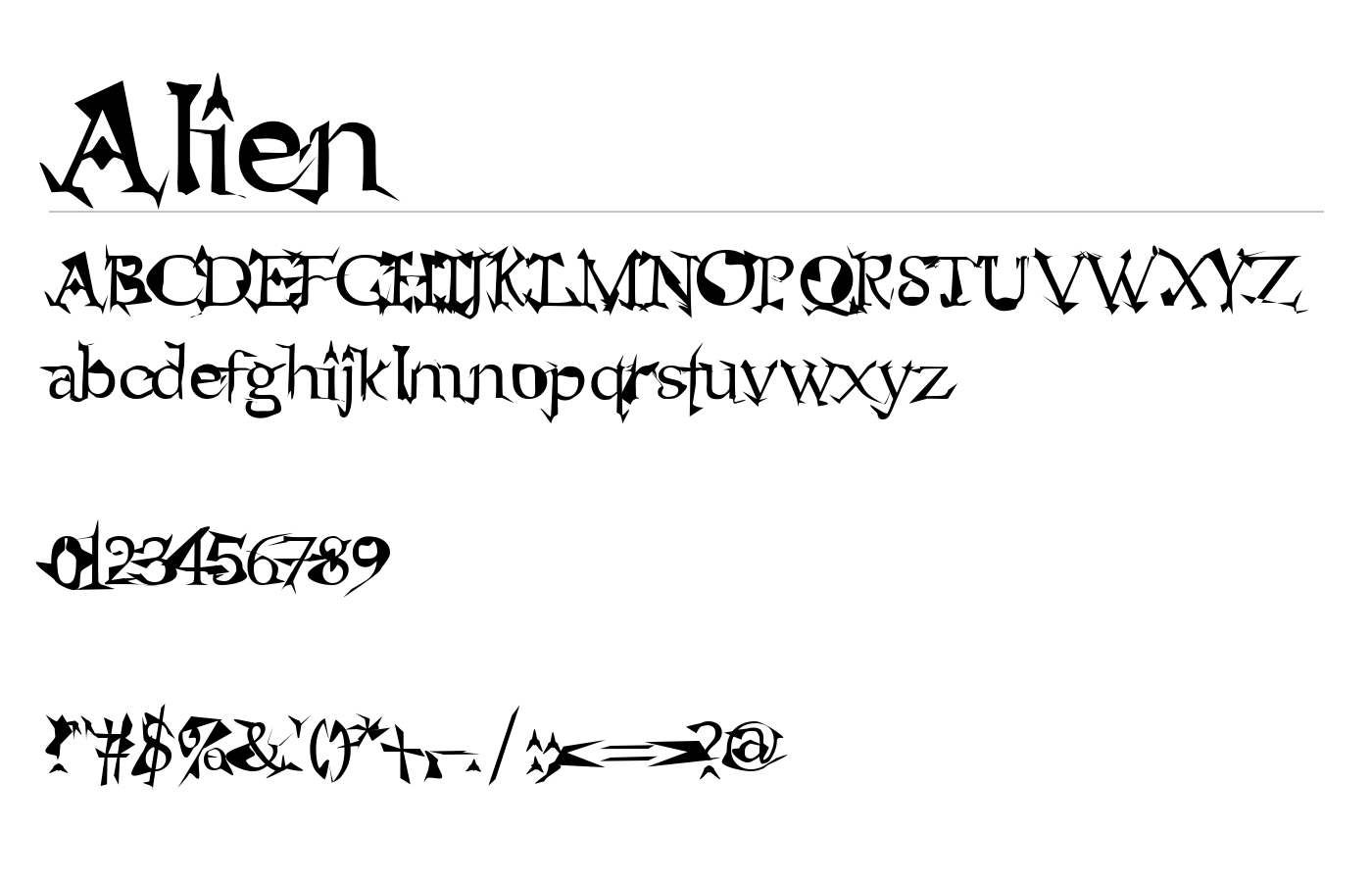
Alien Font is a decorative serif typeface with sharp, jagged edges and high contrast between thick and thin strokes, giving it a spiky, otherworldly appearance. Its irregular, fragmented letterforms evoke a mysterious and eerie mood, making it an excellent choice for fantasy, sci-fi, or horror-themed designs like posters, logos, and book covers that need a bold, unconventional look. This font works best in large sizes where its unique details can shine, adding a striking and memorable touch to creative visual projects.
Alien Font
About Alien Font